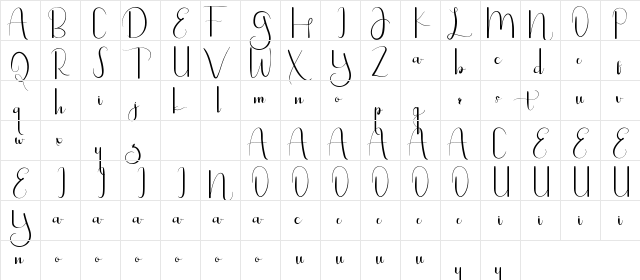
Lighten Up Demo Regular
Design Context for Lighten Up Demo Typeface
Lighten Up Demo takes a measured approach to typography — its balanced proportions and neutral character make it a reliable workhorse for both digital and print work. The delicate stroke weight brings airiness and refinement to layouts.